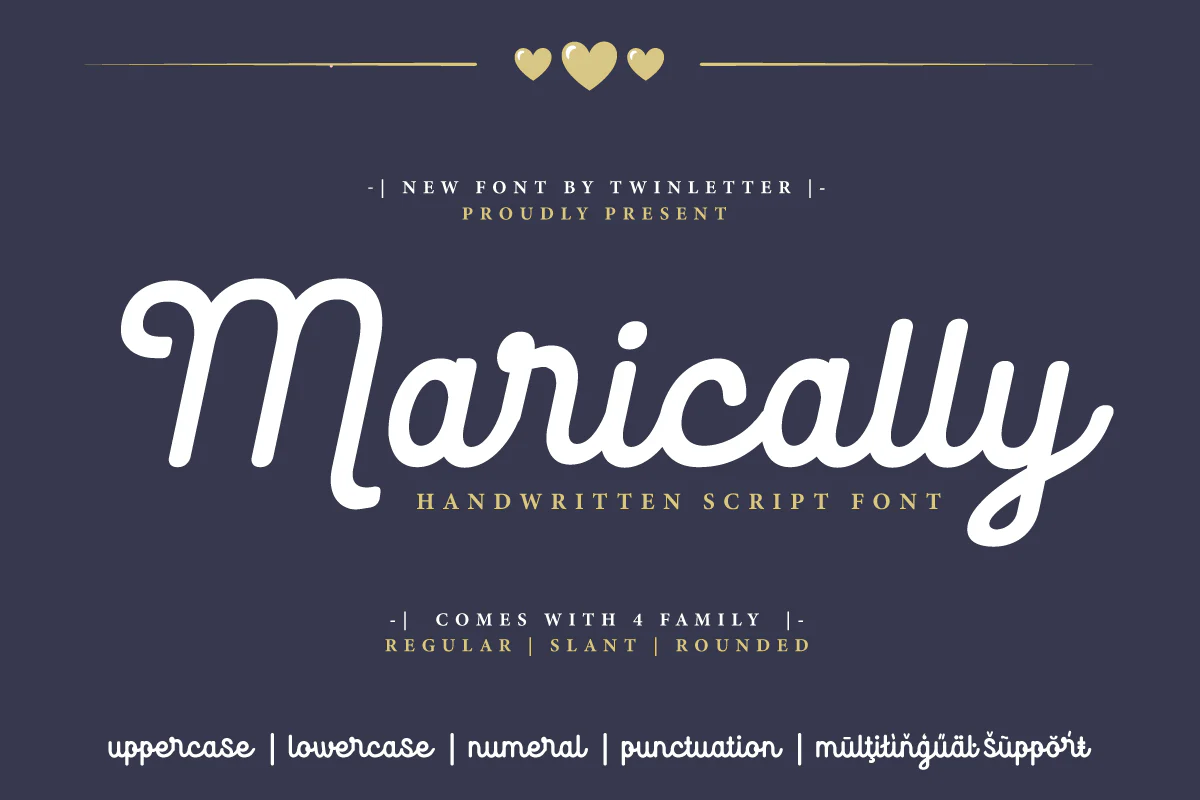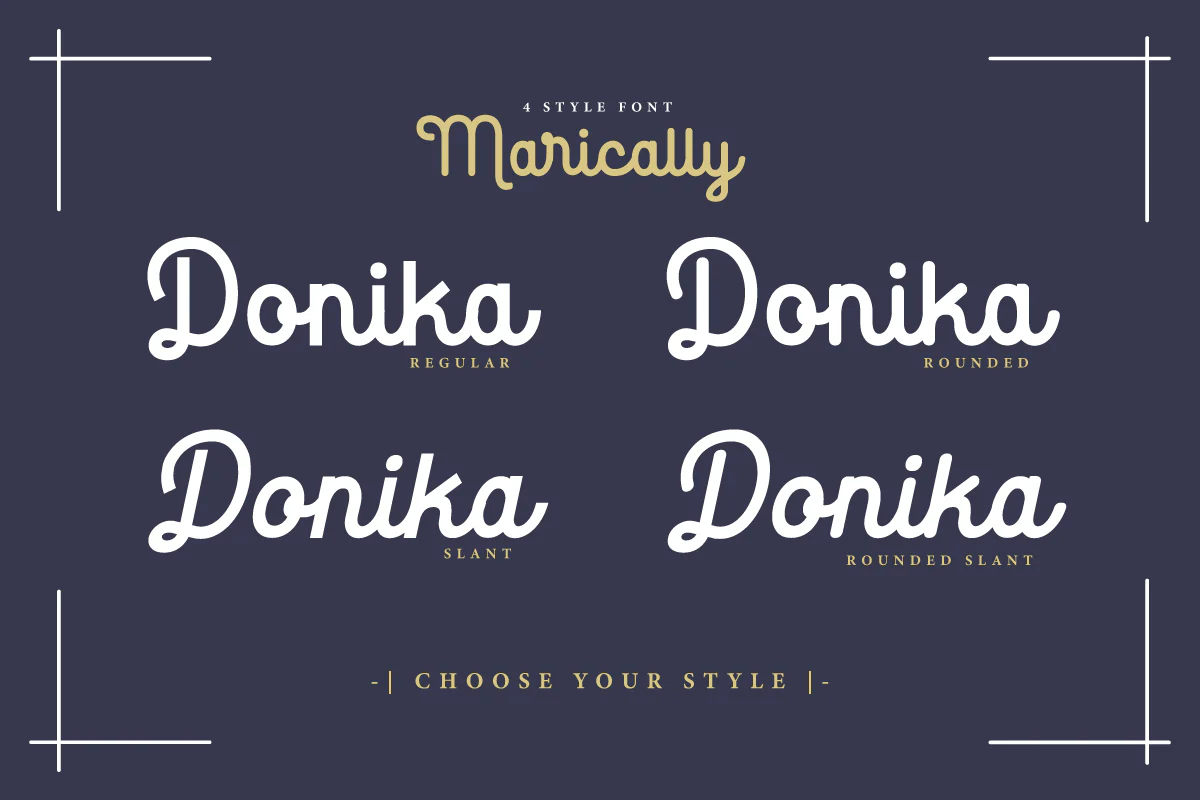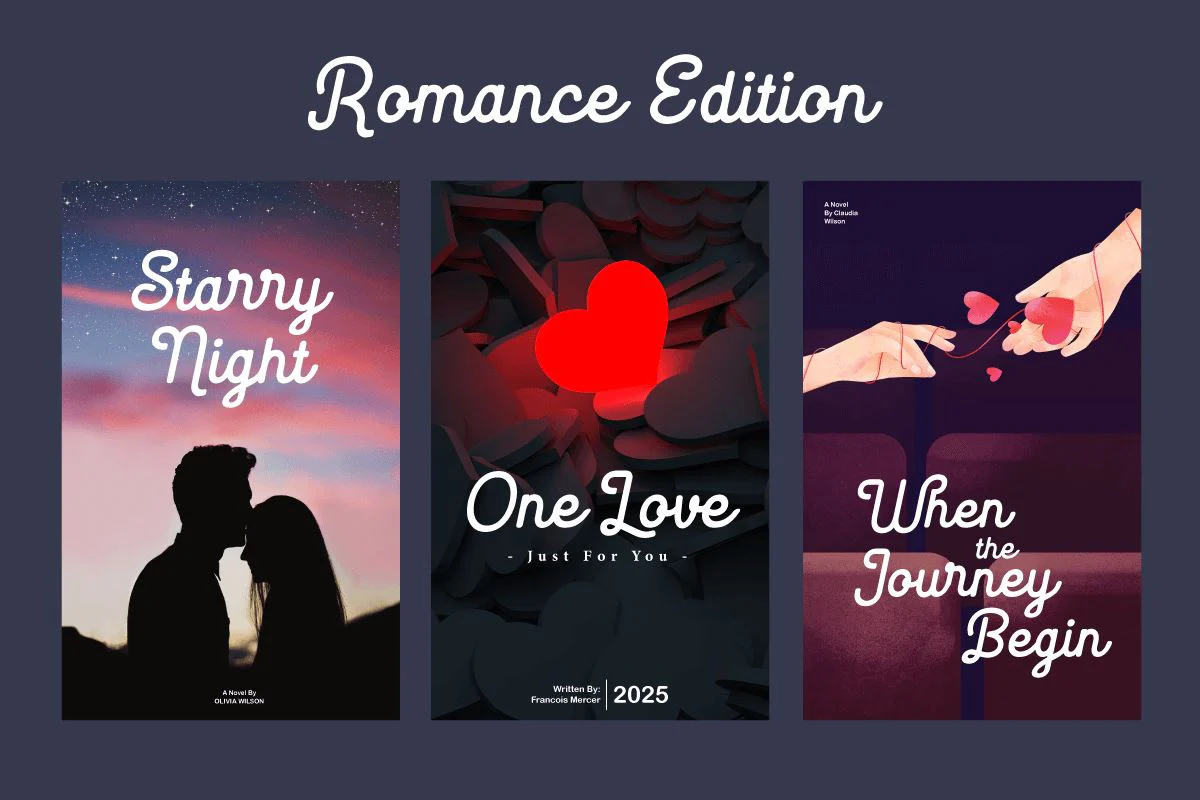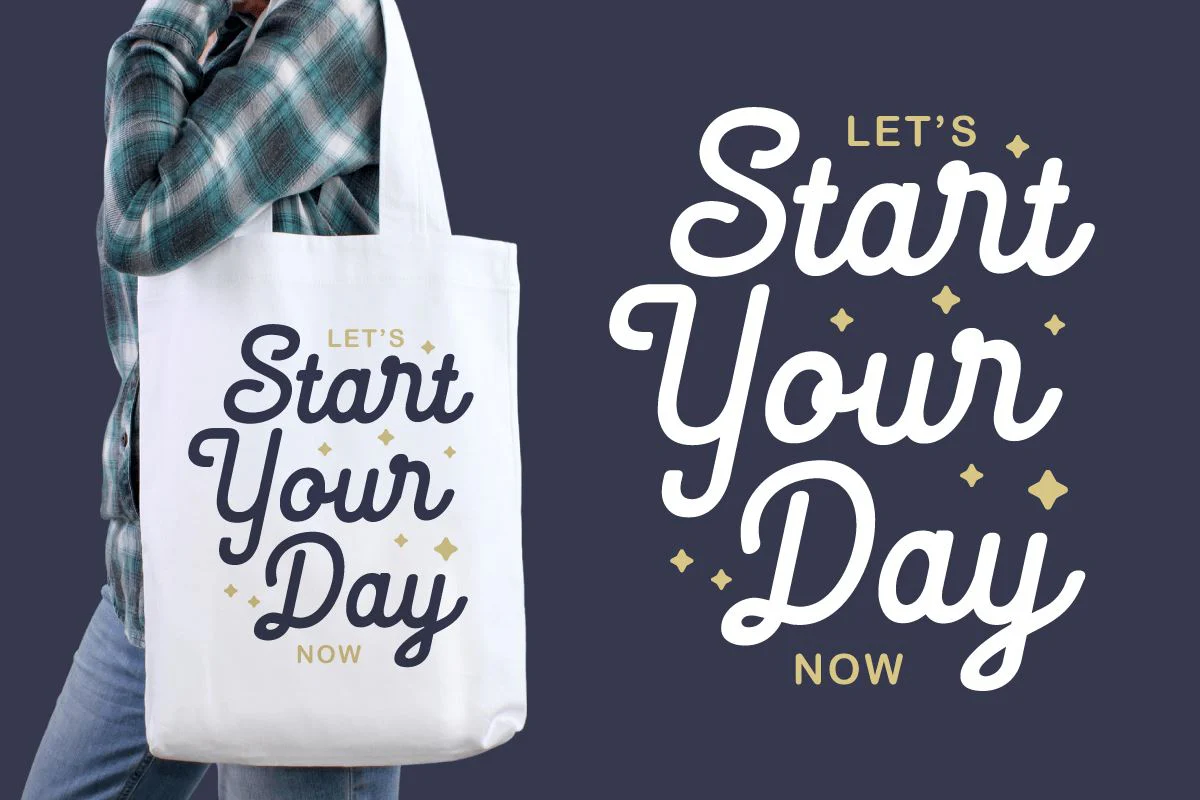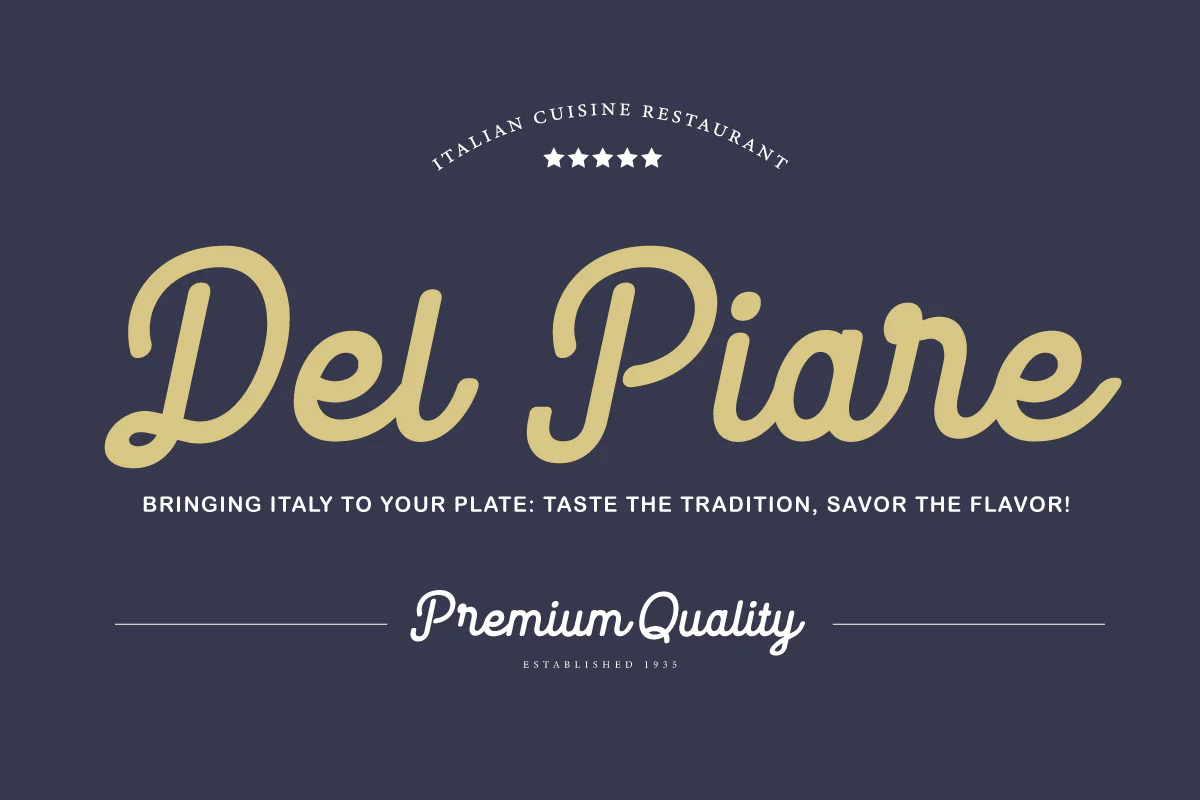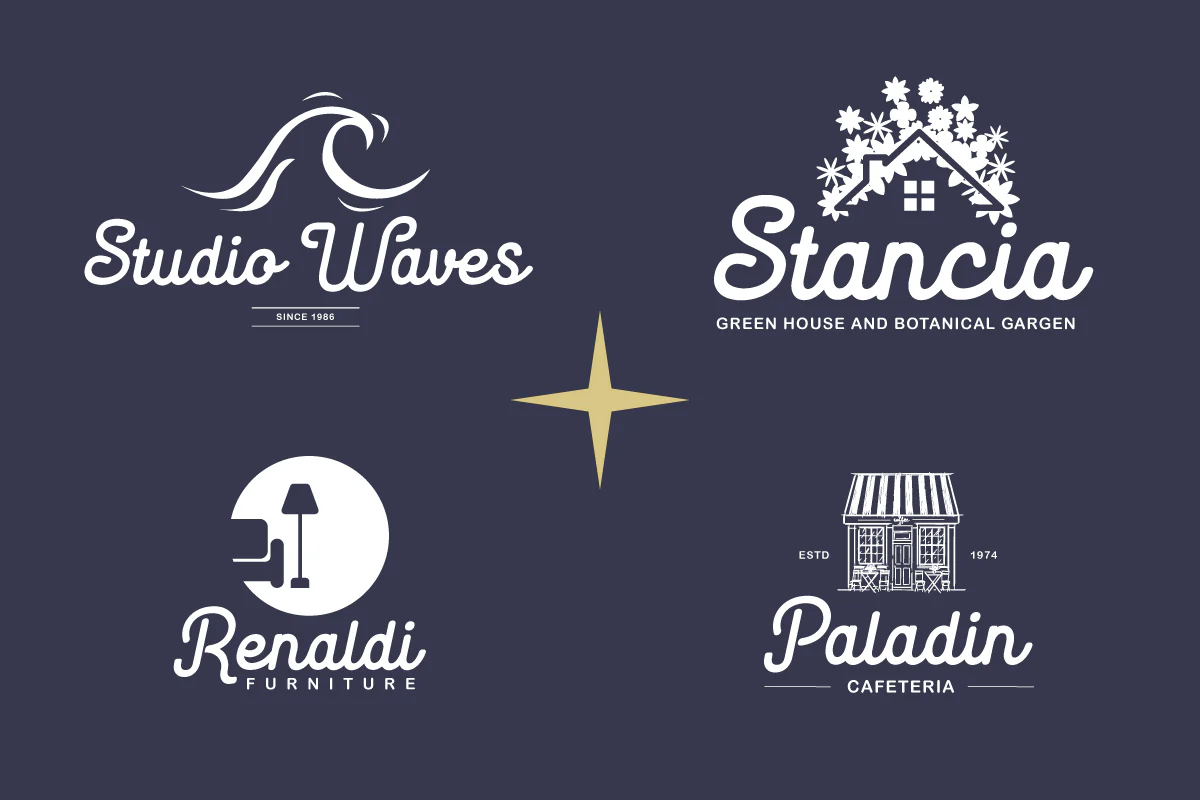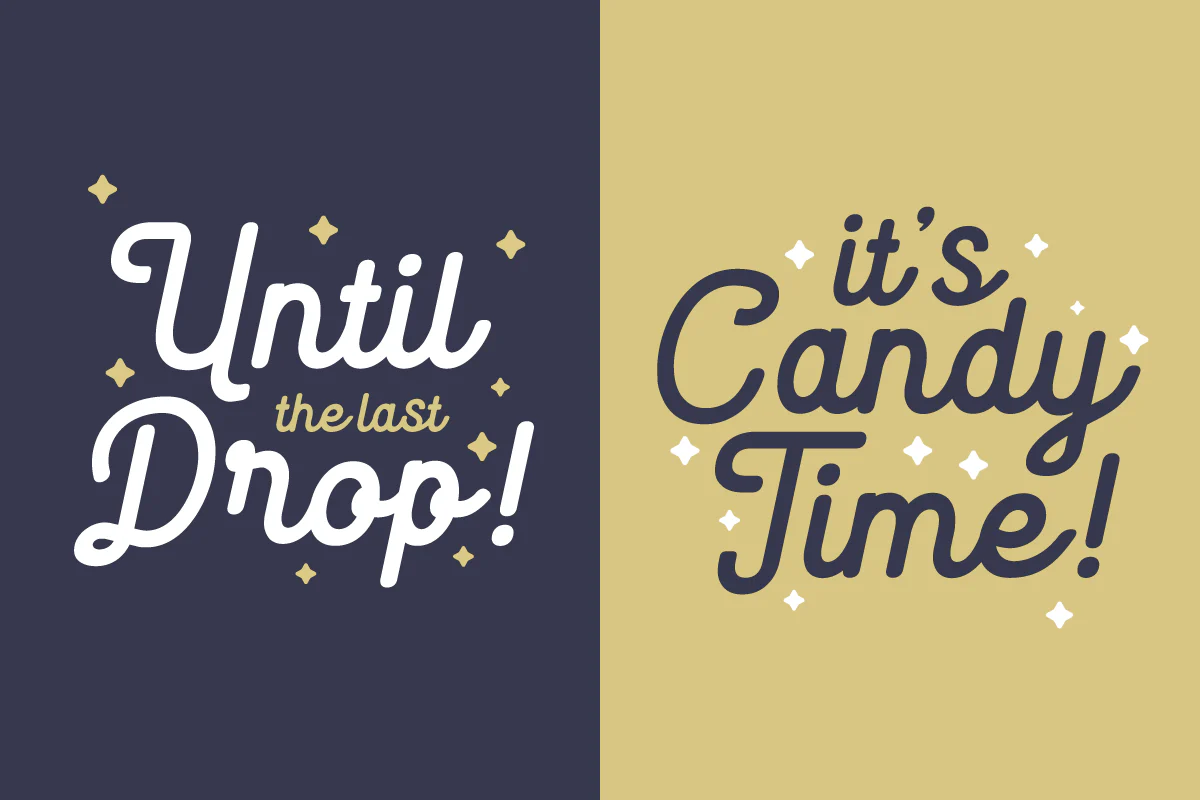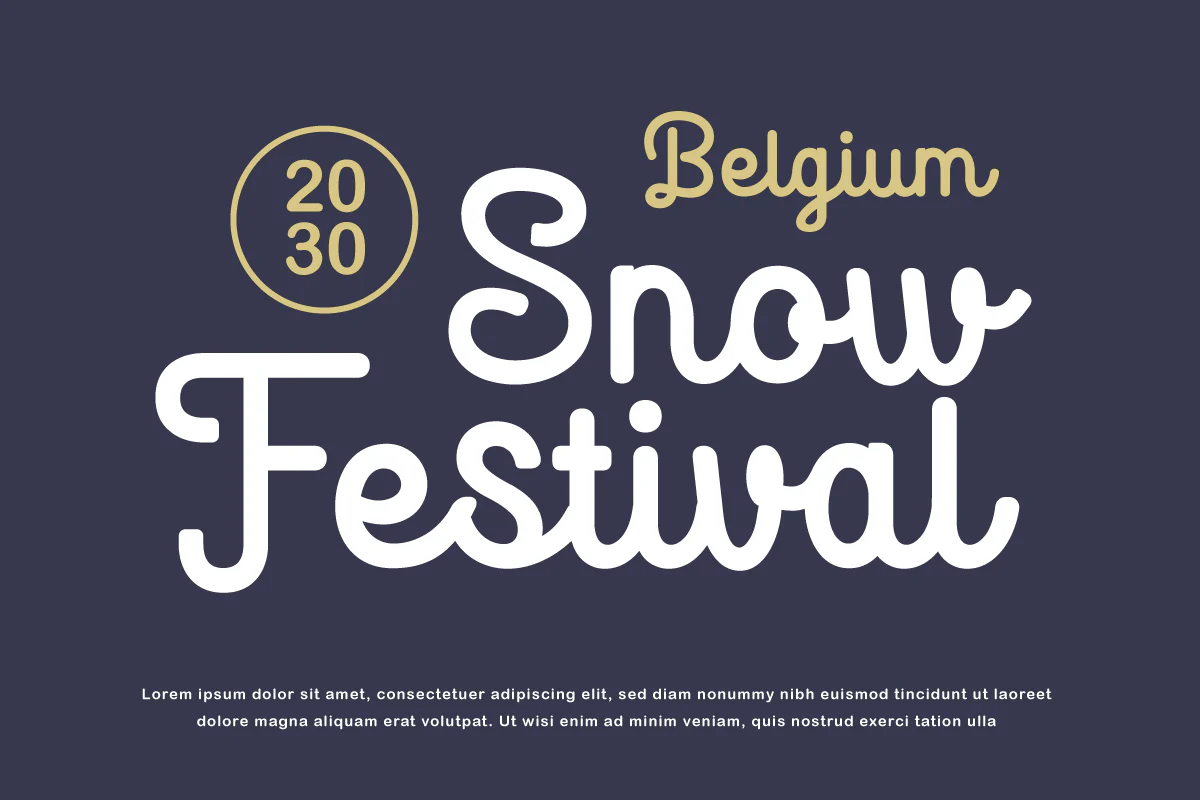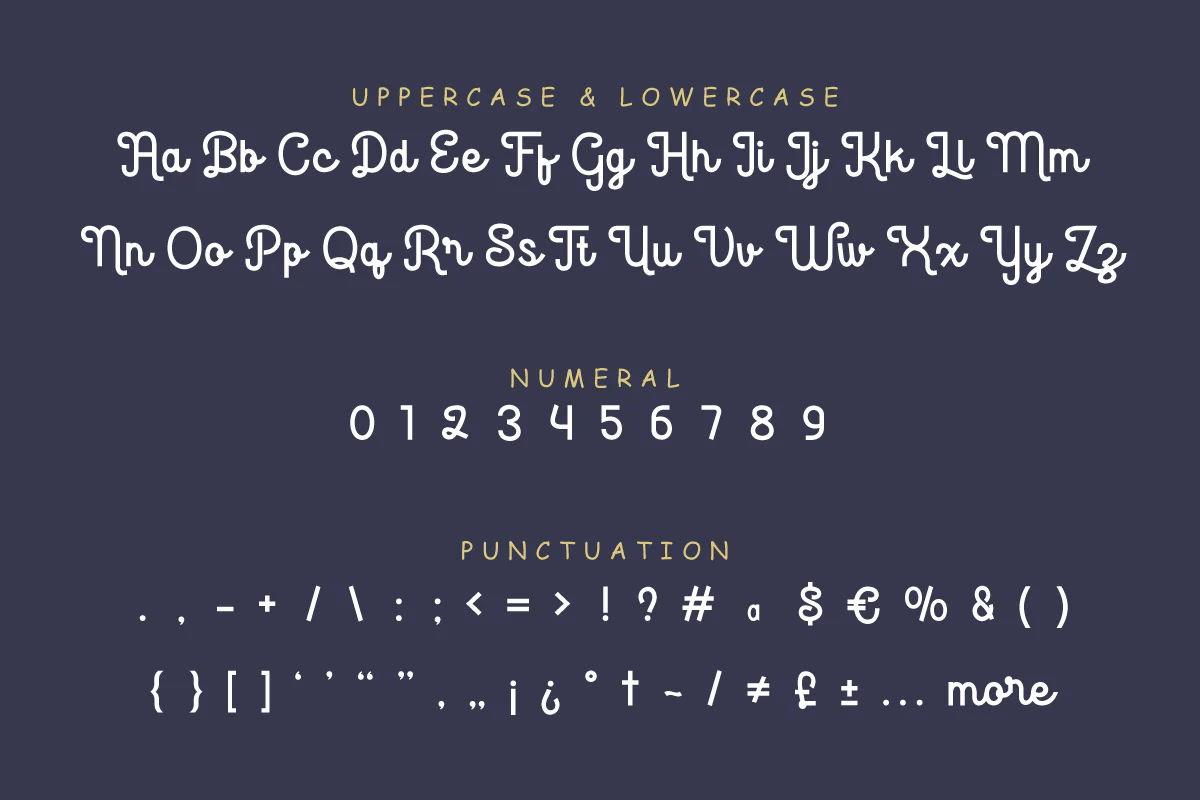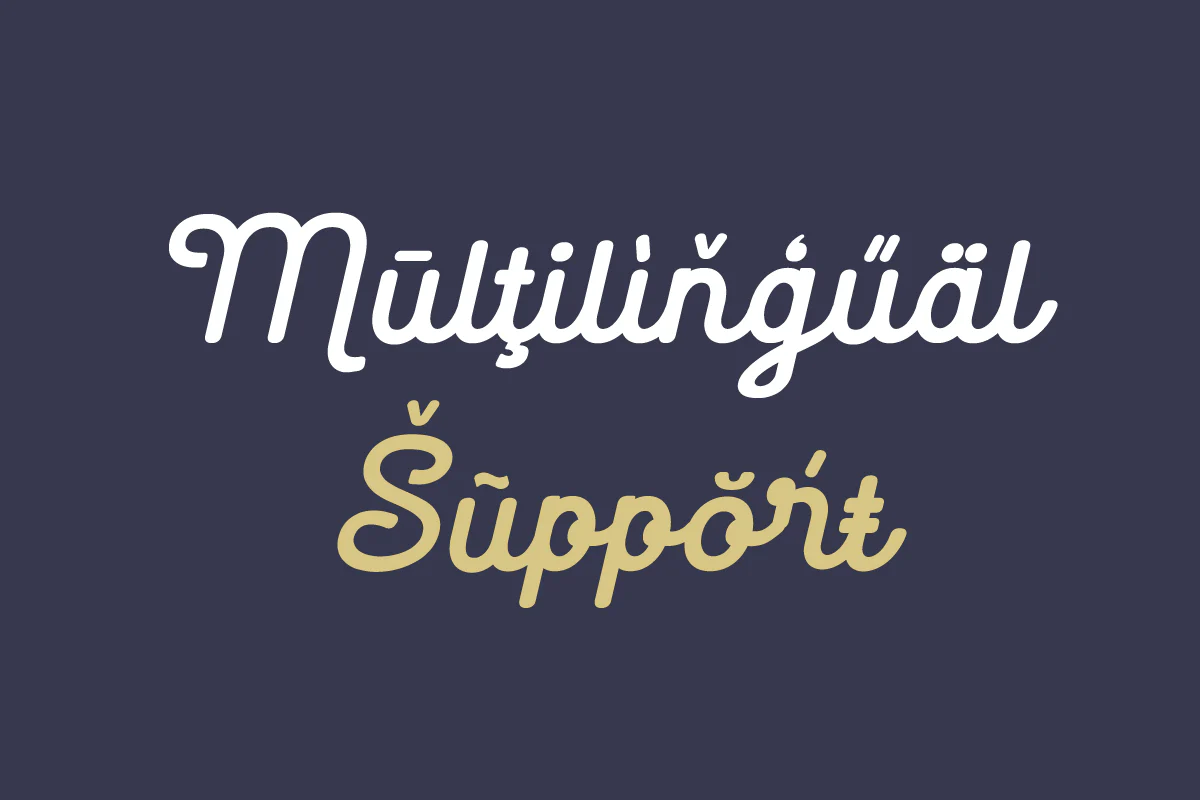
Marically - Script Font
Indulge in the elegance of Marically, a script font that dances gracefully across the page. With each stroke, Marically captures the essence of sophistication and fluidity, lending a touch of refinement to your projects. Whether it's invitations, branding, or editorial designs, this font adds a dash of charm and personality to every piece.